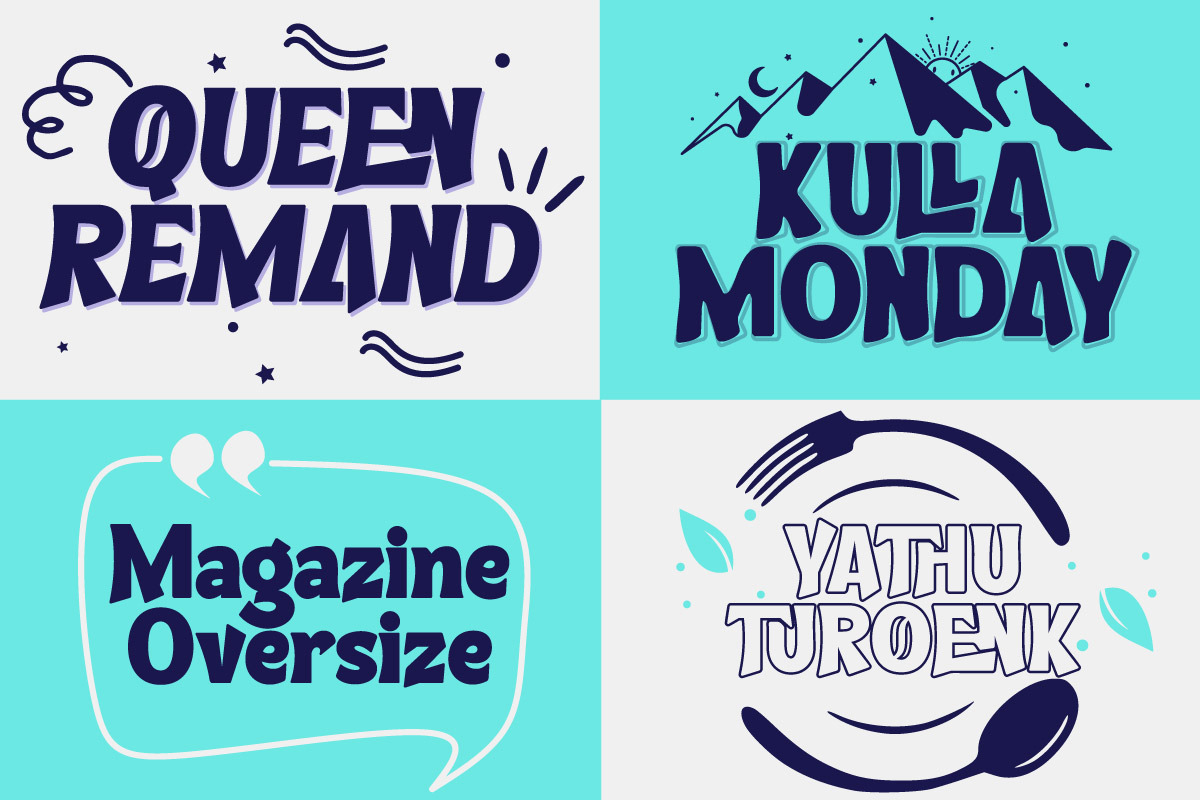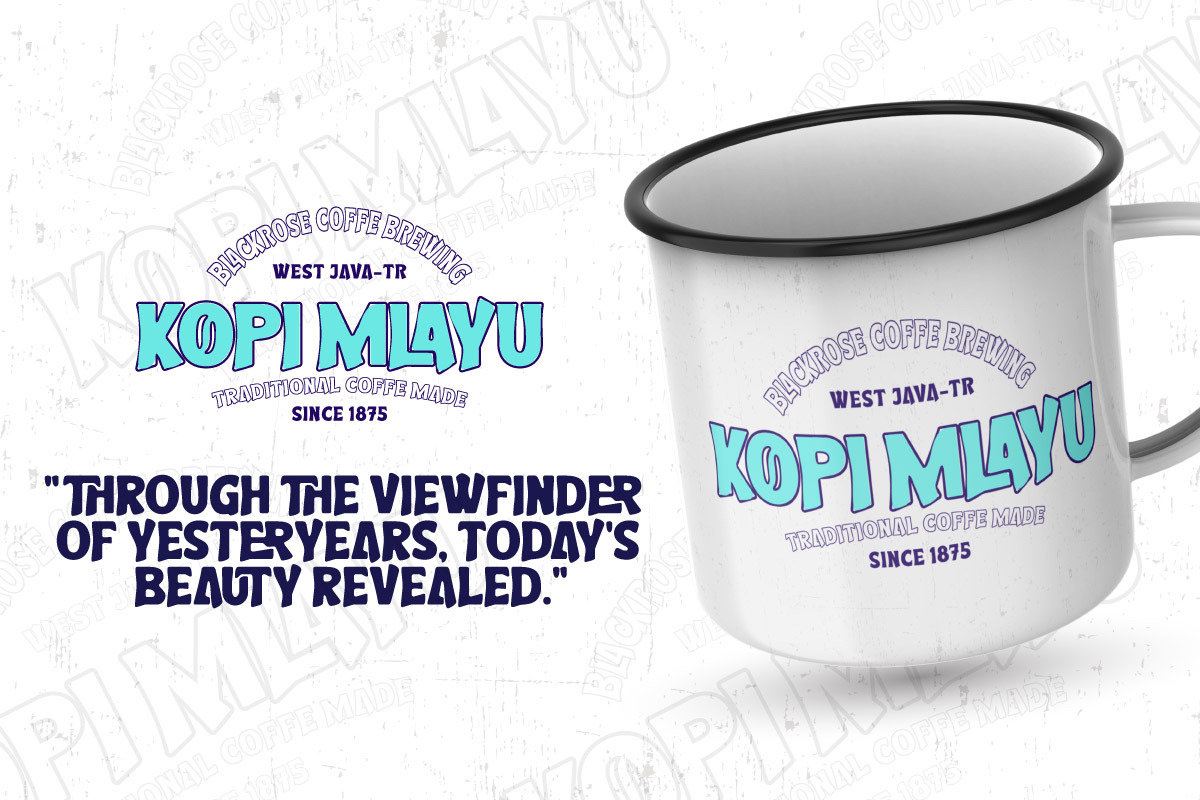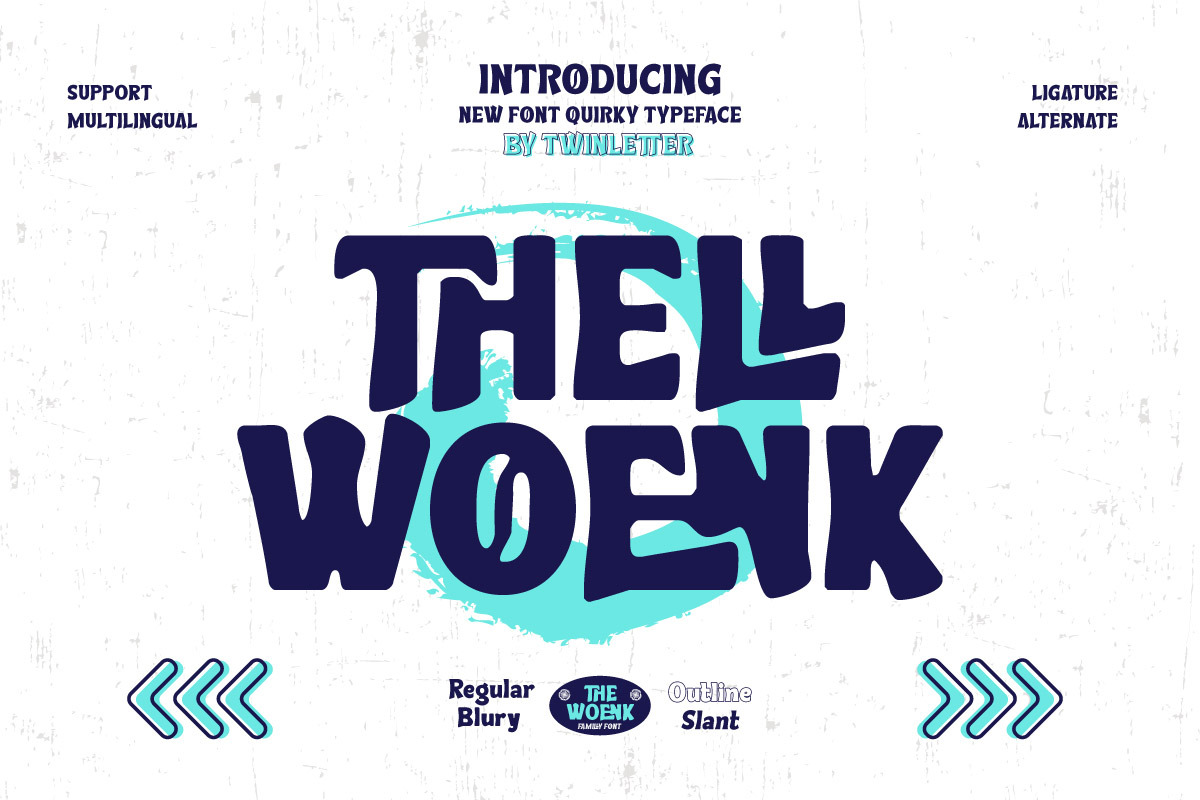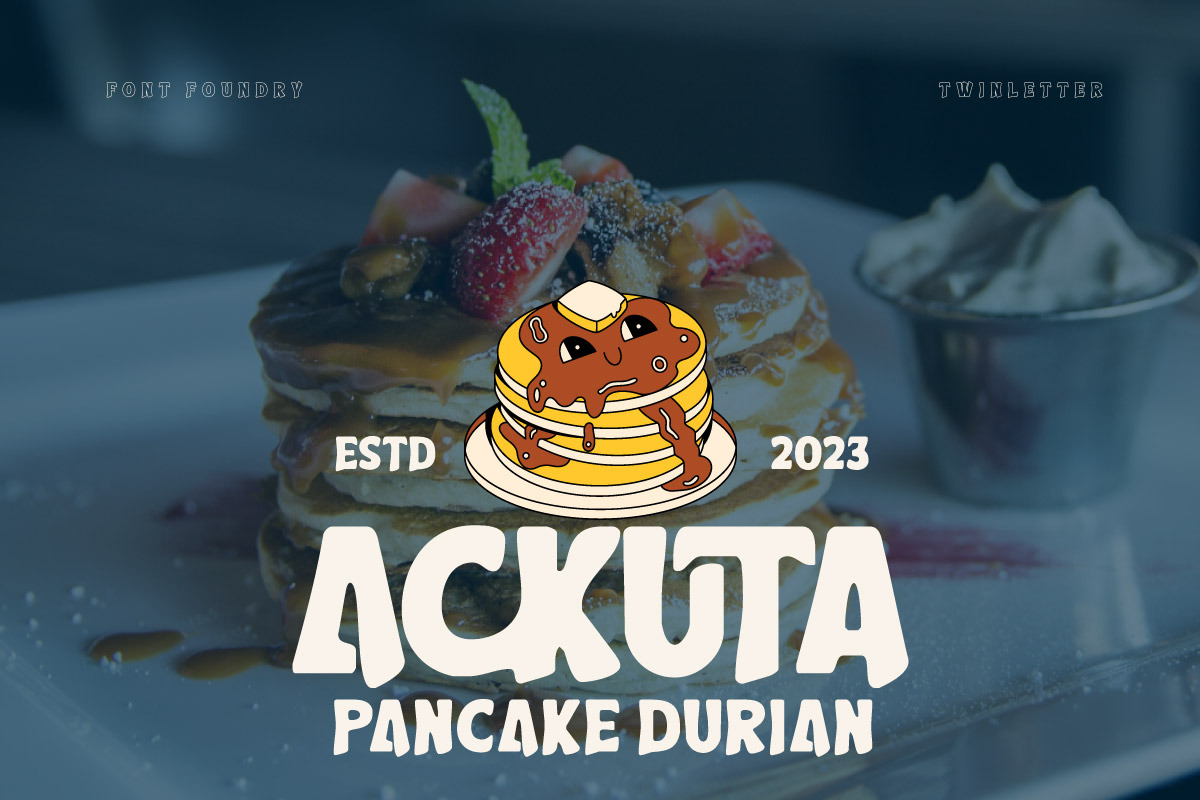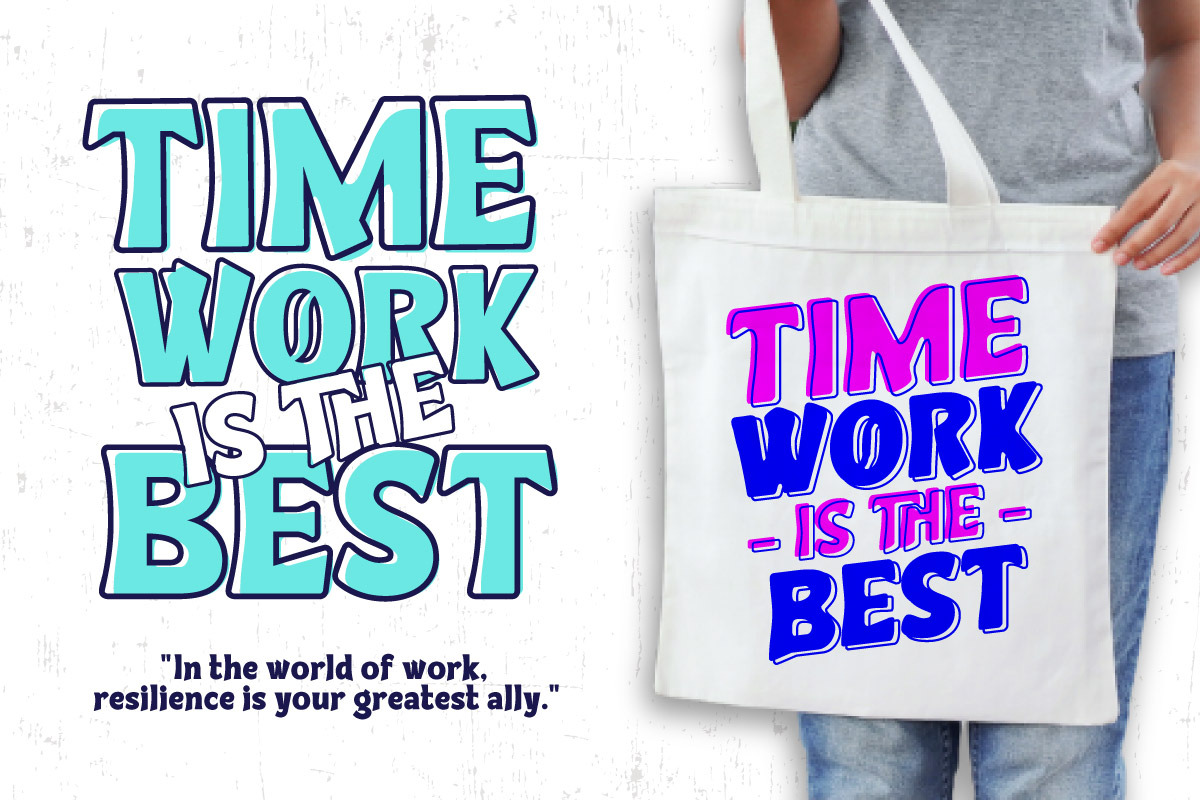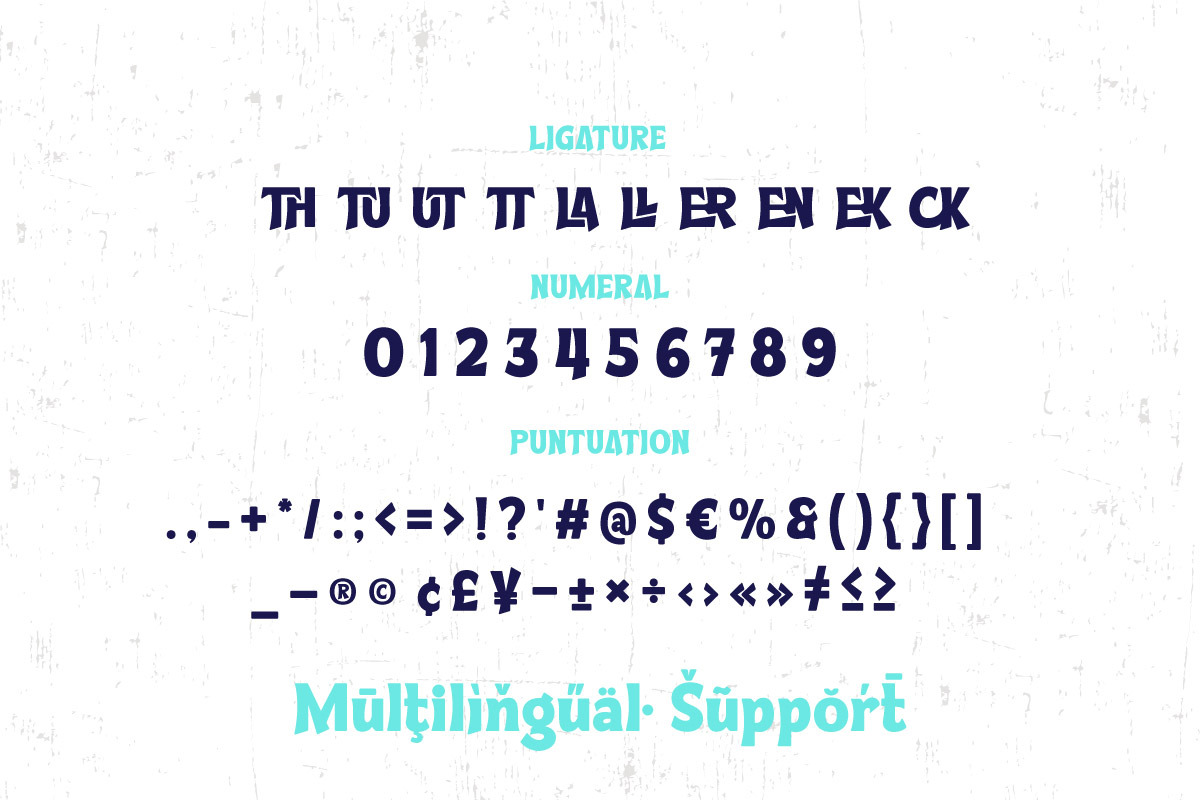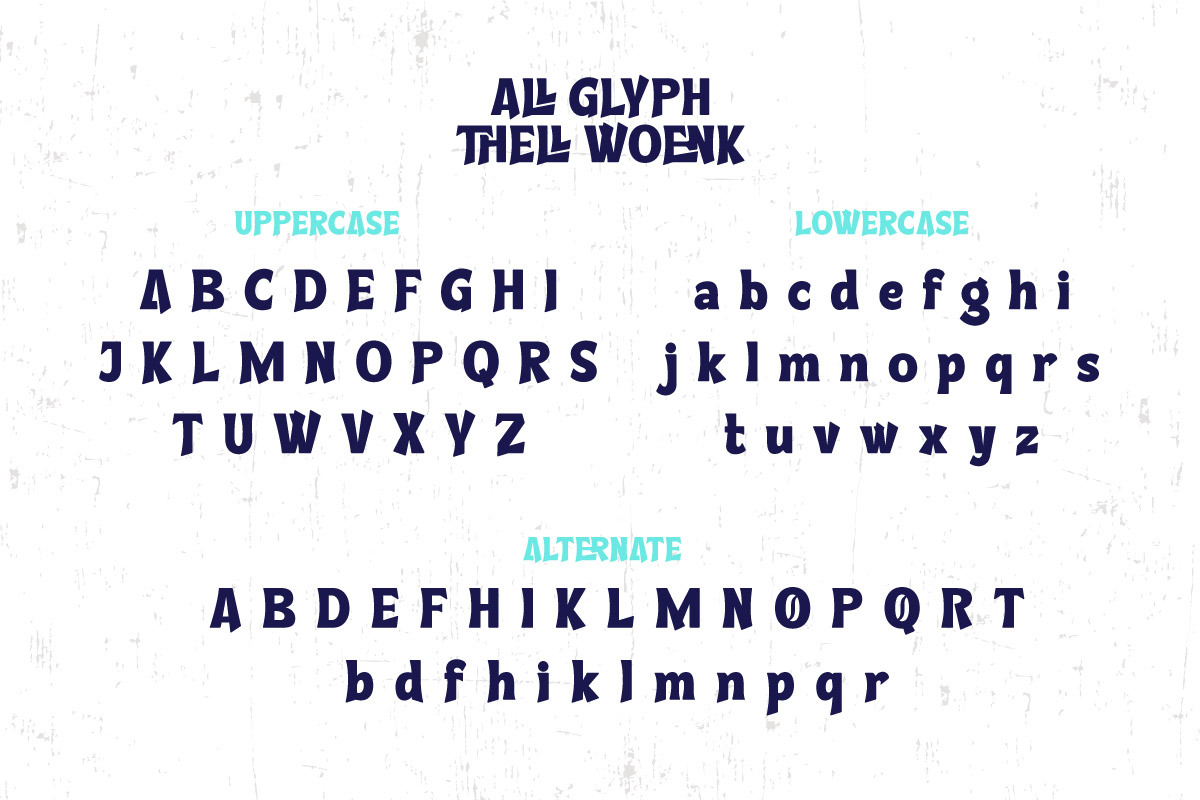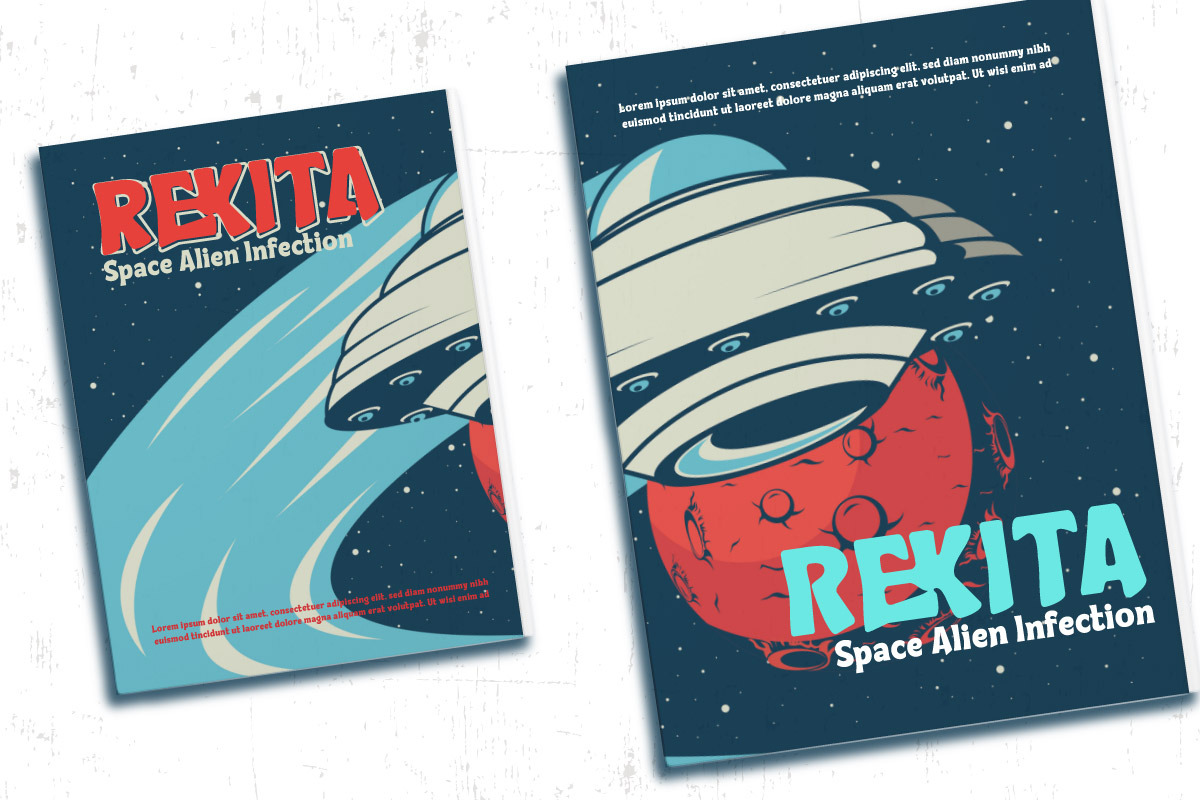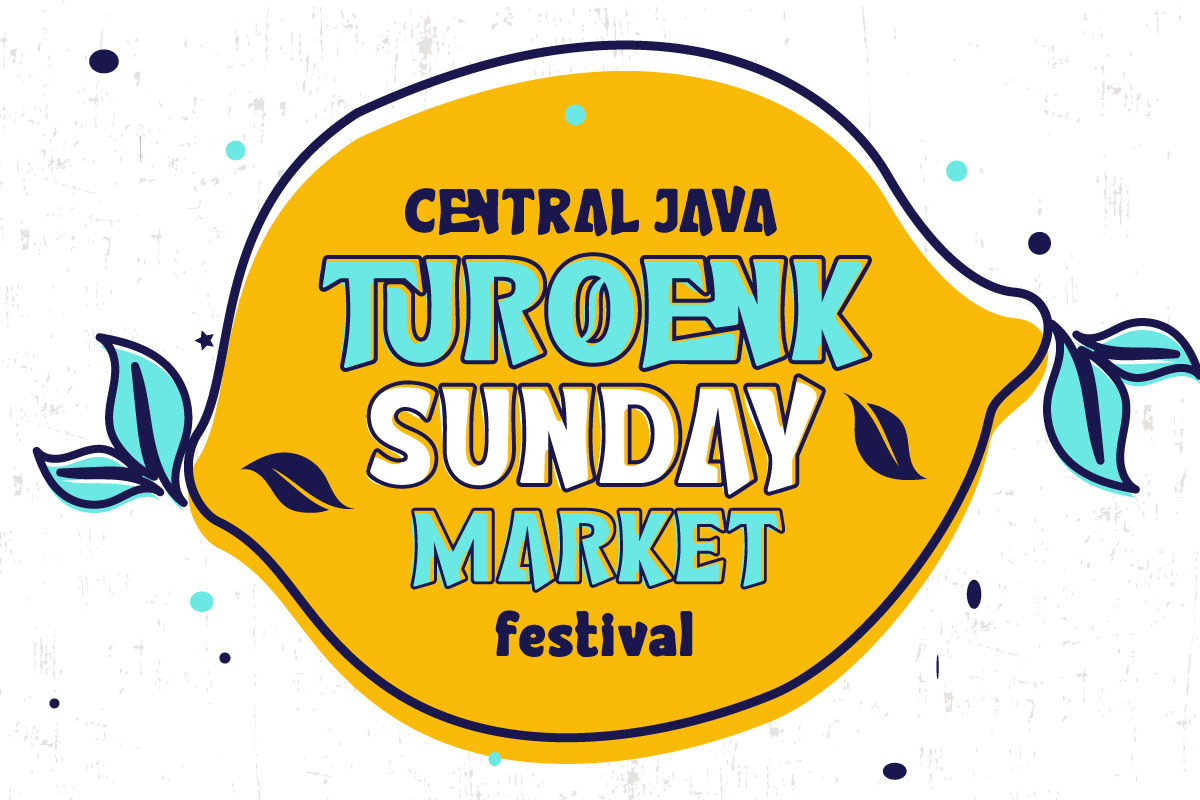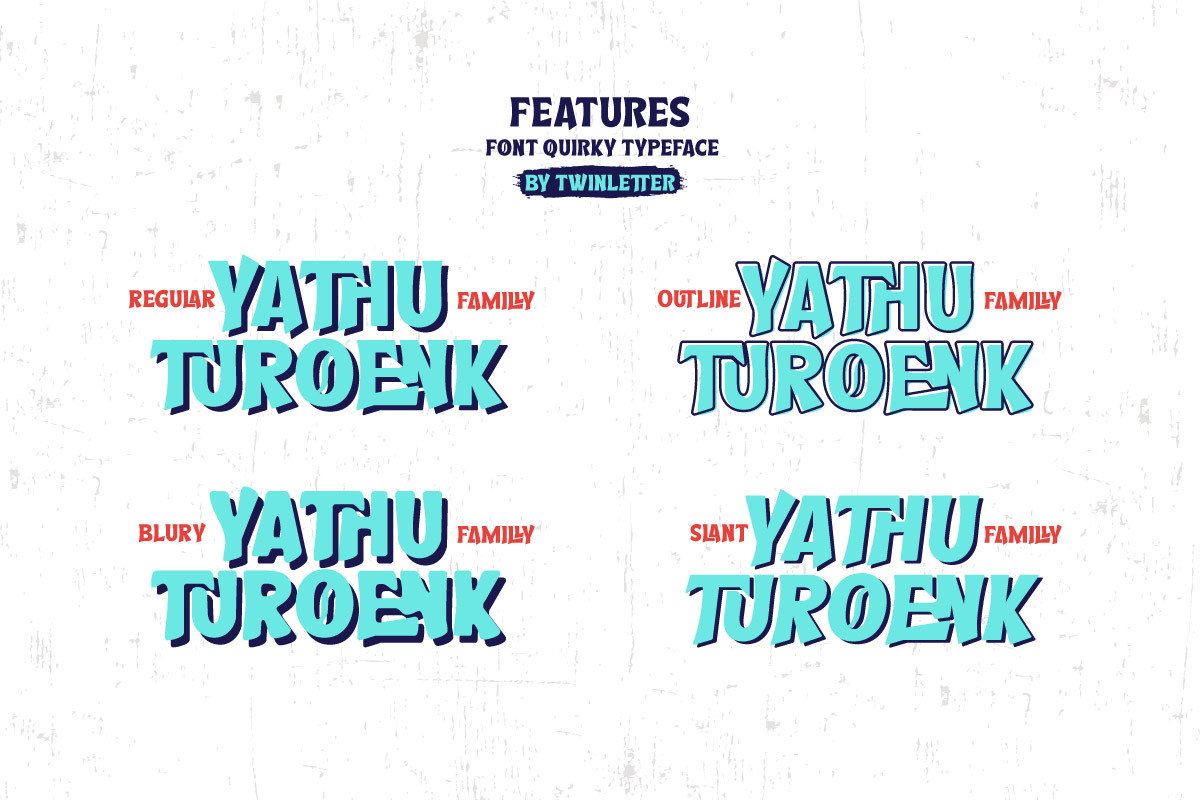
Thellwoenk - Quirky Display Font
Welcome creativity and uniqueness with Thellwoenk, a display font full of fun and a touch of quirky. Designed with unique and eccentric details, each Thellwoenk letter brings a fresh and different feel to your design project.
Thellwoenk offers the ability to provide a fun and refreshing presence. With an eccentric design and striking uniqueness, this font is suitable for titles, posters, or other design elements that require a quirky feel and are full of character.
Thellwoenk's advantage lies in its ability to create a bright and pleasant atmosphere. With each letter having its character, this font gives a creative and energetic impression to your design projects.
With Thellwoenk, bring fun and uniqueness to your designs. Let each letter express your creativity, adding a quirky element that makes your project different and full of fun.